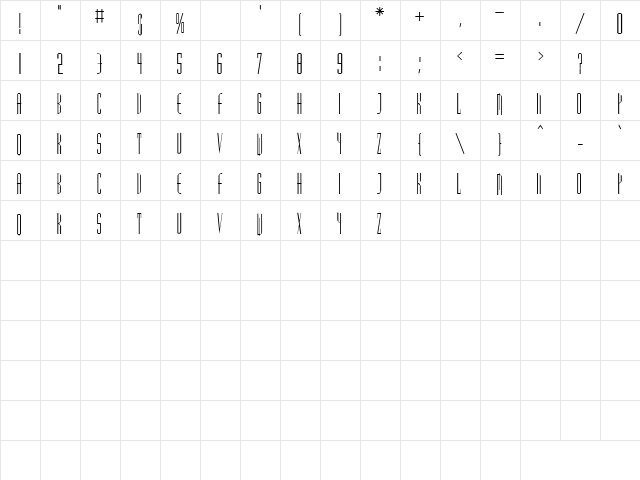
Joe 18 Regular Free Font
Joe 18 Regular
Design Context for Joe 18
Joe 18 is a composed and adaptable typeface that performs quietly and consistently across a wide range of design contexts.